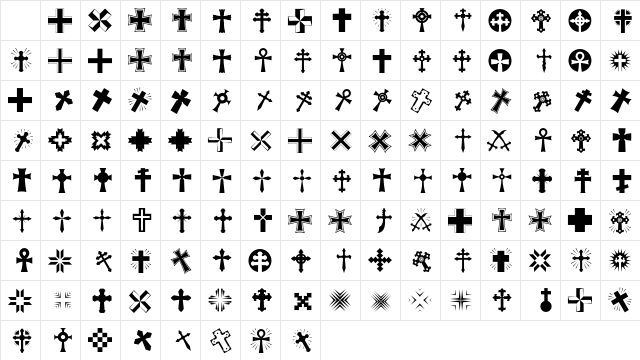
Complete Altemus Crosses glyph index. Displaying only characters natively supported by Altemus Crosses font.
Altemus is a composed and adaptable typeface that performs quietly and consistently across a wide range of design contexts.